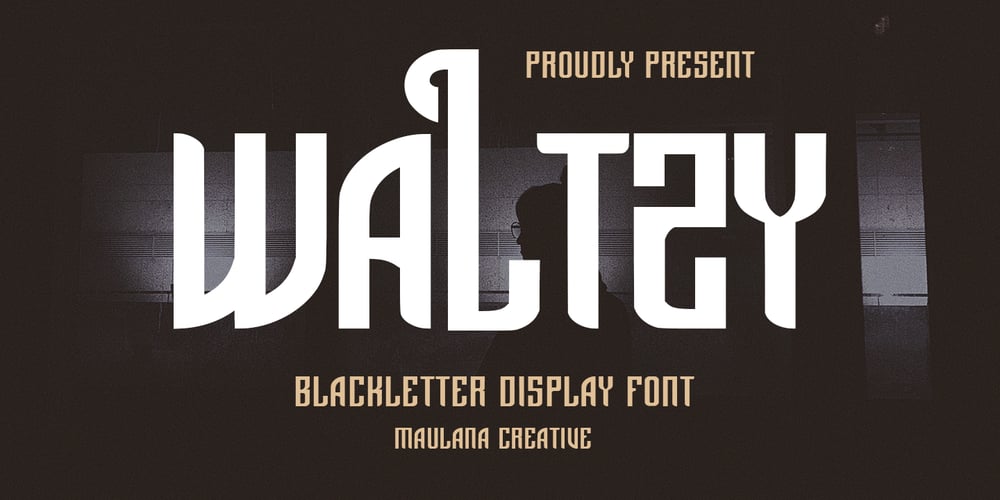
Waltzy Blackletter Display Font Font Family was designed by Gilang Maulana and published by Maulana Creative. Waltzy Blackletter Display Font contains 1 styles and family package options. Waltzy display typeface font, fun character with a bit of ligatures and alternates. To give you an extra creative work. Waltzy font support multilingual more than 100+ language. This font is good for logo design, Social media, Movie Titles, Books Titles, a short text even a long text letter and good for your secondary text font with script or serif. Make a stunning work with Waltzy font.Cheers, Maulana Creative